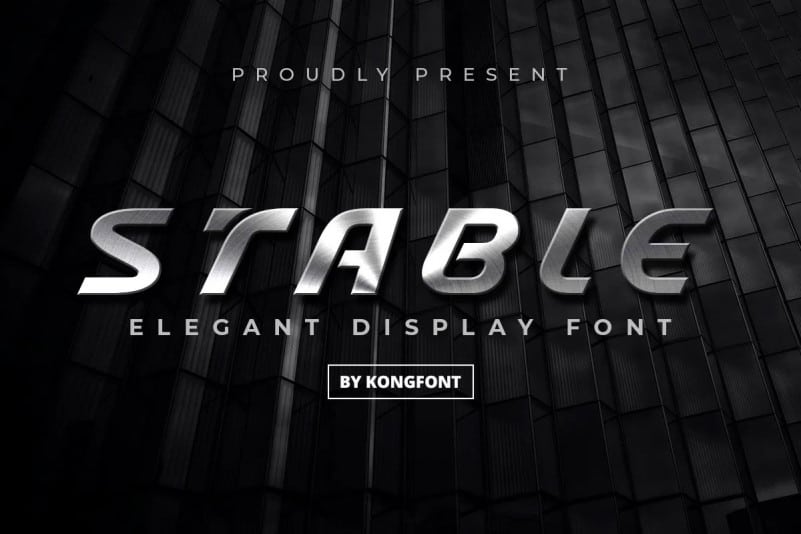
Stable Display Font
Stable Display Font is a clean, super-condensed display typeface that was inspired by mid-century modern design. Uppercase and lowercase letters are the exact same. A collection of letters and numbers suitable your projects also great for Logotype, Branding Design, Logo Design, Digital Lettering Arts, T-Shirt/Apparel, Poster, Magazine, Signs, Advertising Design, and also perfect for your other projects branding.